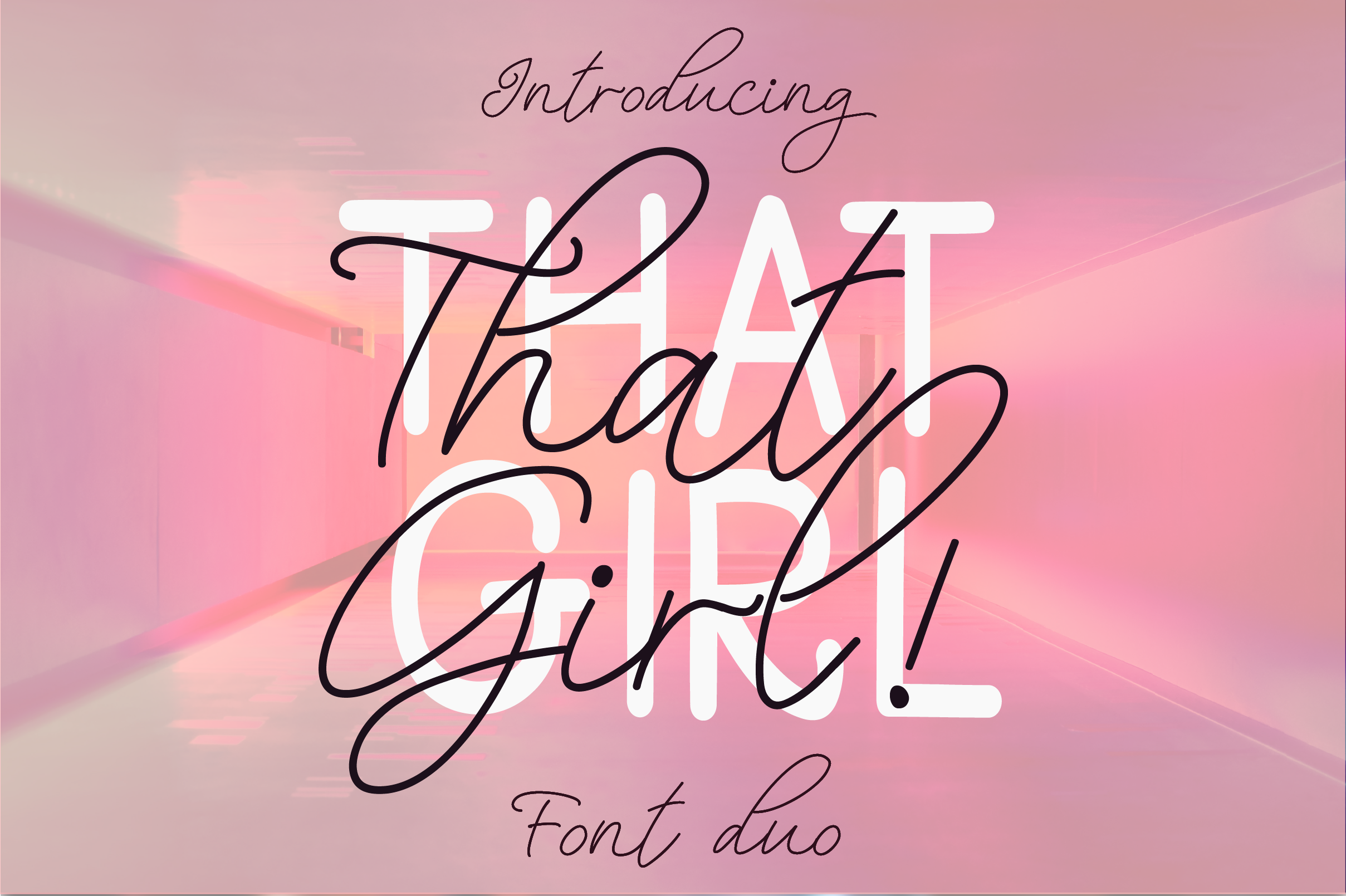
Say hello to That Girl, a classic font duo that comes with a stylish signature script along with a simple yet classy sans serif typeface. Perfect for adding a unique touch to your designs, this duo is ideal for branding, packaging, wedding invites and cards, photo overlays and so much more!